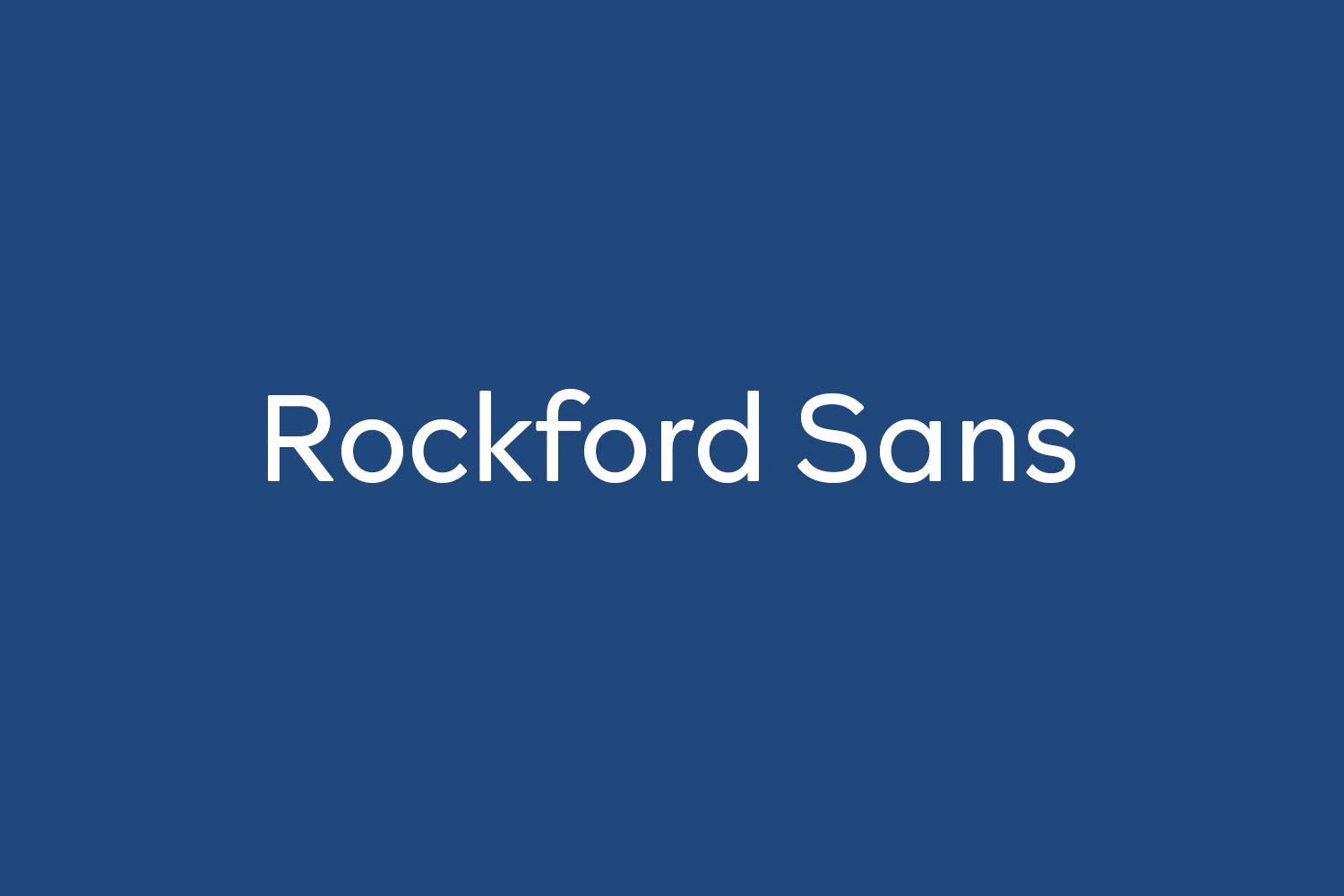
Rockford Sans Free Font Family is a geometrical Sans Serif with subtly rounded edges. Rockford comes in eight weights and matching Italics. With its large x-height and round features, it’s both legible and friendly. It’s suited to cover a wide variety of tasks from editorial to brand design, advertising, logos, and more.
Designed by Fenotype